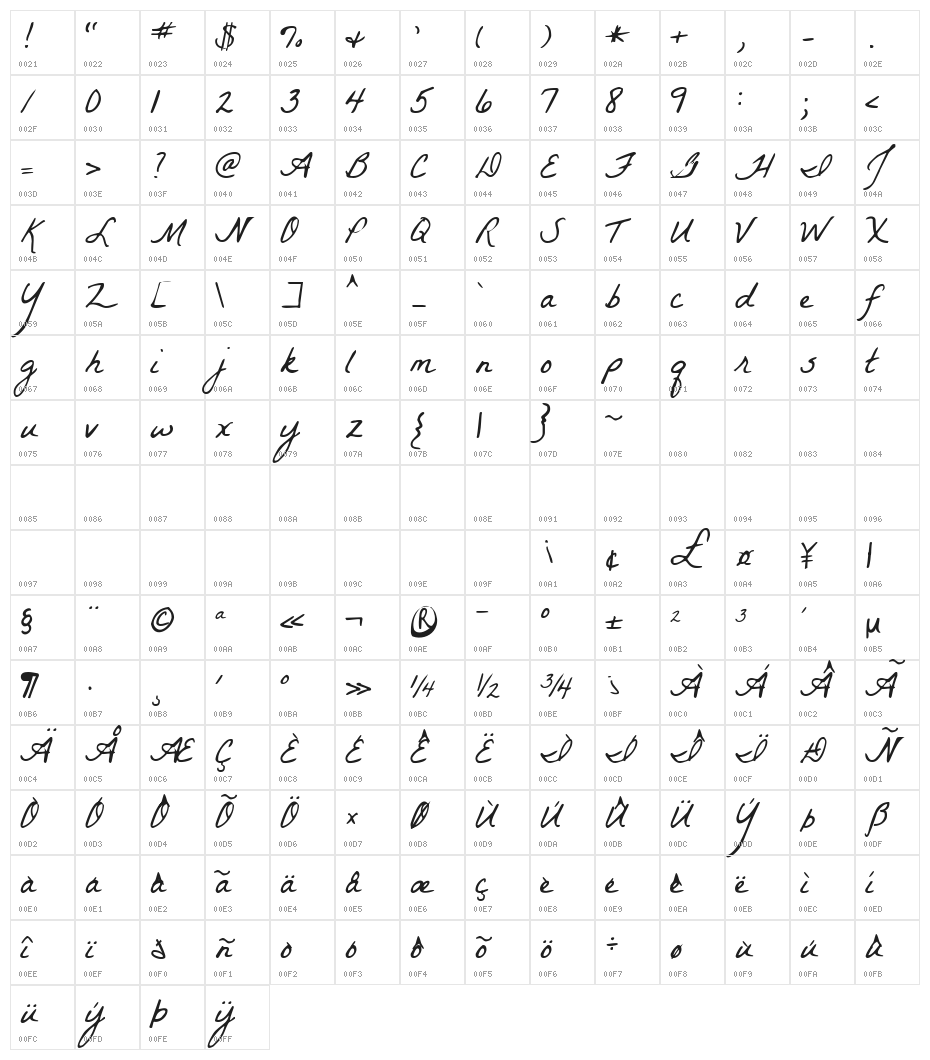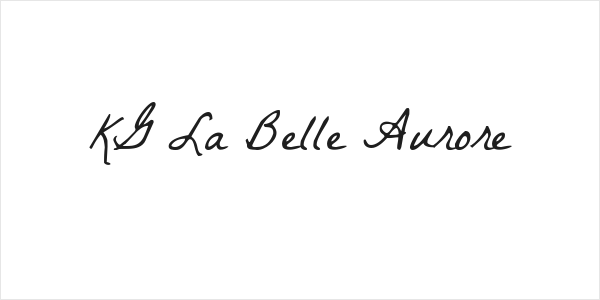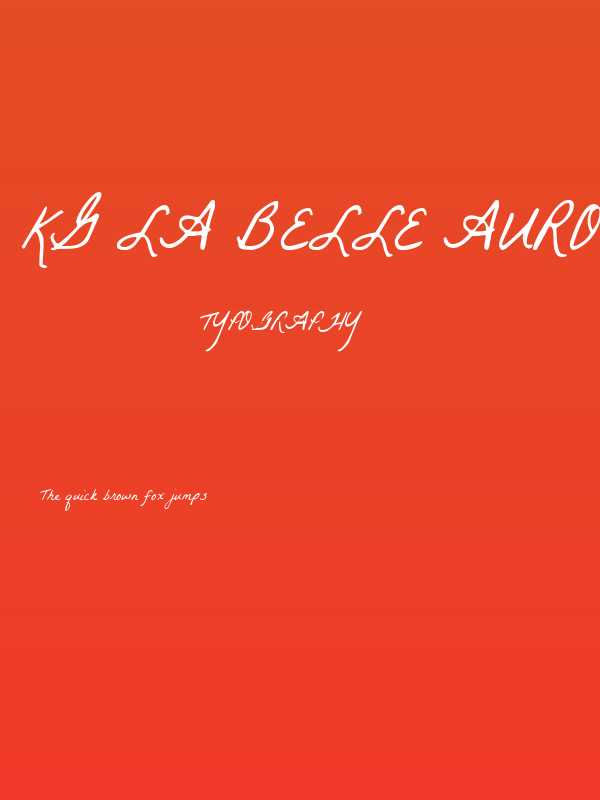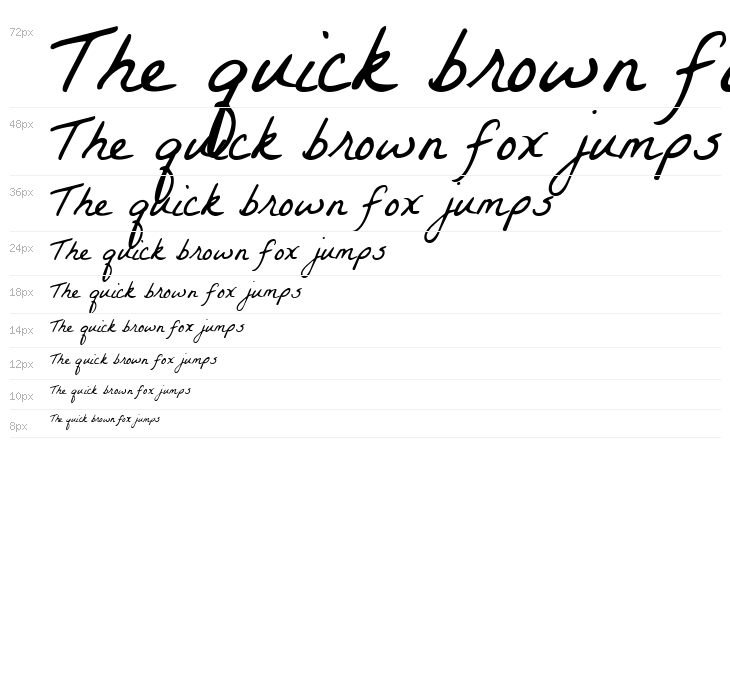
KG La Belle Aurore Font
KG La Belle Aurore Description
This font exudes a handwritten, cursive style that is both elegant and fluid. The characters are connected, creating a seamless flow that mimics natural handwriting. The uppercase letters are slightly more structured, while the lowercase letters exhibit a more relaxed and freeform style. The numerals maintain the cursive theme, offering a cohesive look across all characters. Special characters are thoughtfully integrated, maintaining the overall aesthetic. This font is ideal for projects that require a personal touch or a sense of elegance.
| Overall Style | Elegant, Personal |
| Use Case | Invitations, Personal notes, Branding |
| Proposed Projects | Ideal for wedding invitations, personal letters, branding materials, and greeting cards. |